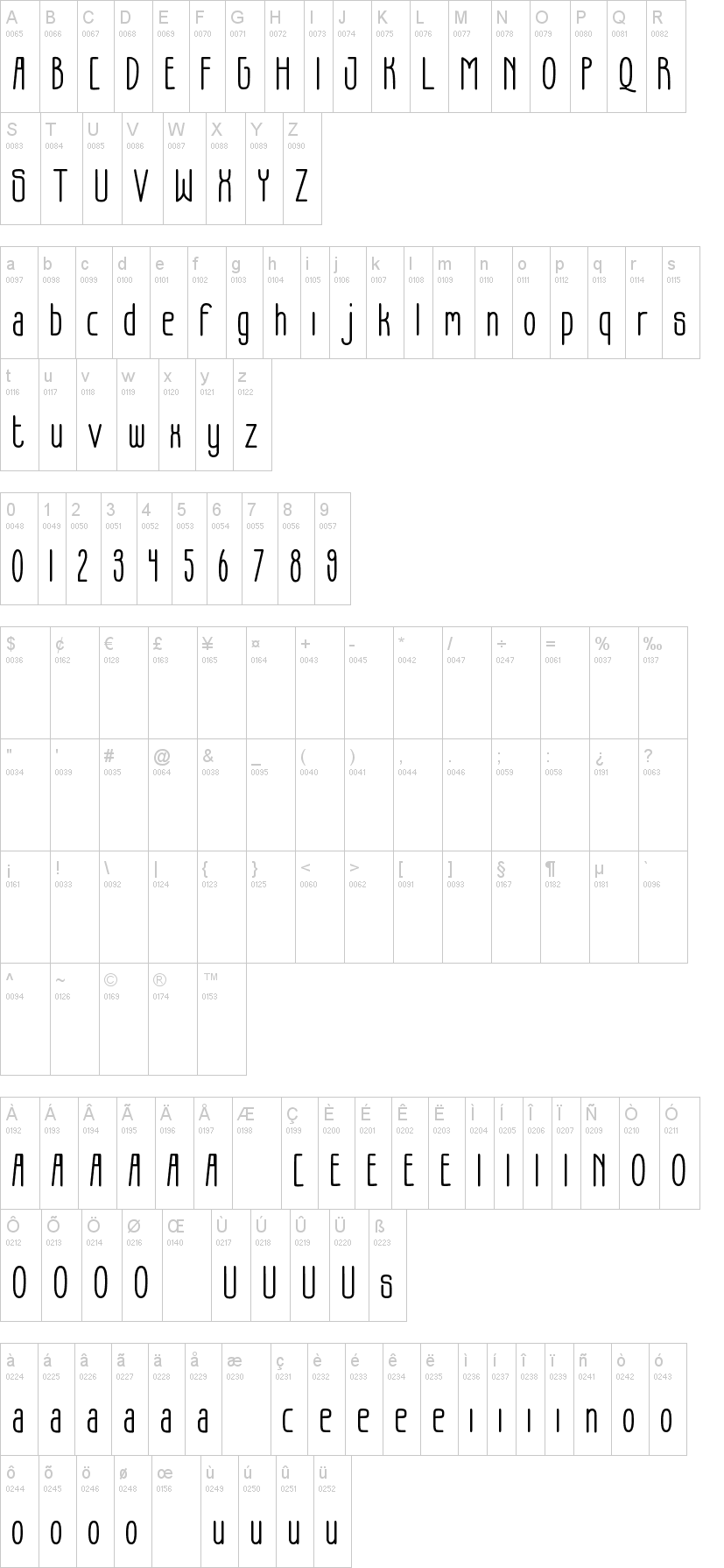
It Combines A Gorgeous Script With A Stylish And Strong Sans Serif.
Softers is a stylish and modern serif font. Featuring just the right amount of trendiness combined with a classy look, this font is suitable for adegante font nov 15, 2022. Masterfully designed to become a true favorite, summer sunshine is a wonderful choice for.